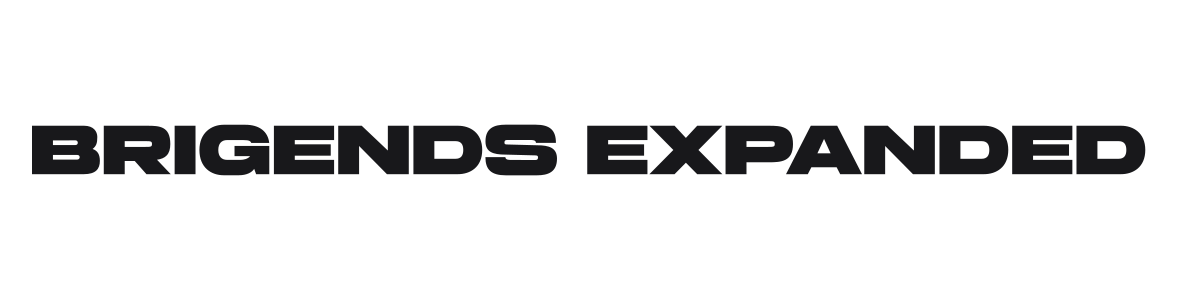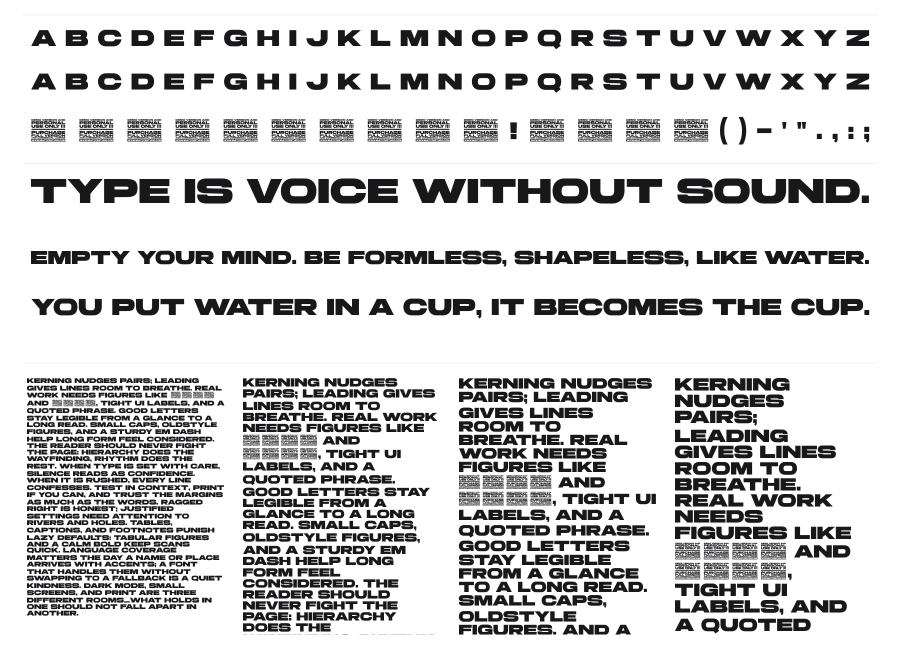
Brigends Expanded
Brigends Expanded is a heavy, wide grotesque sans built entirely around maximum mass and visual impact. Every character is stretched to a broad expanded width with near-monoweight strokes, creating a dense, uncompromising typographic presence. The kind of font that commands a poster, a jersey, or a brand mark at a glance.